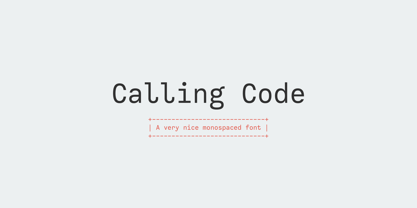
Calling Code™
by Dharma Type
Calling Code is a versatile and stylish monospaced font designed for coding and tabular layouts. It brings a refreshing touch to the traditionally rigid world of monospaced typefaces.
1. Designed specifically for coding and data display.
2. Includes 4 styles: Regular, Italic, Bold, and Bold Italic.
3. Features a slightly condensed width to maximize screen space.
4. Offers excellent legibility and character distinction, with playful curly tails for added charm.
5. Injects fresh personality into the often dull world of monospaced fonts.
Designers: Ryoichi Tsunekawa
Publisher: Dharma Type
Foundry: Dharma Type
Design Owner: Dharma Type